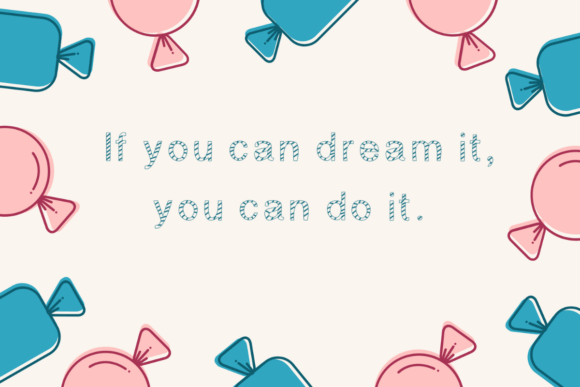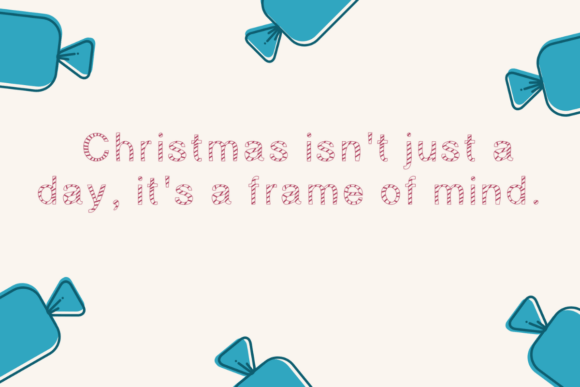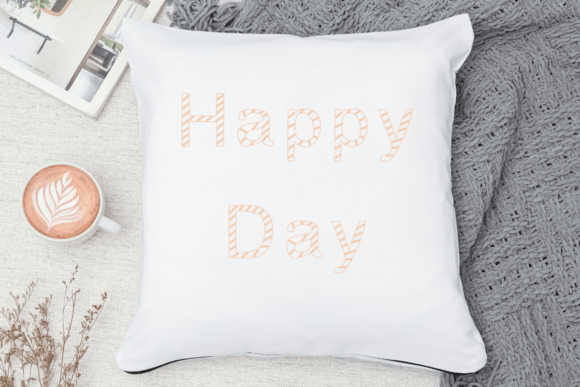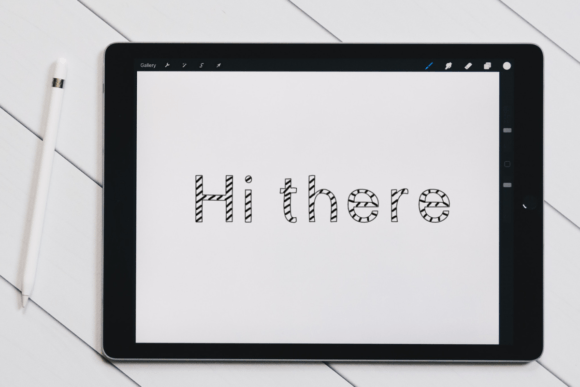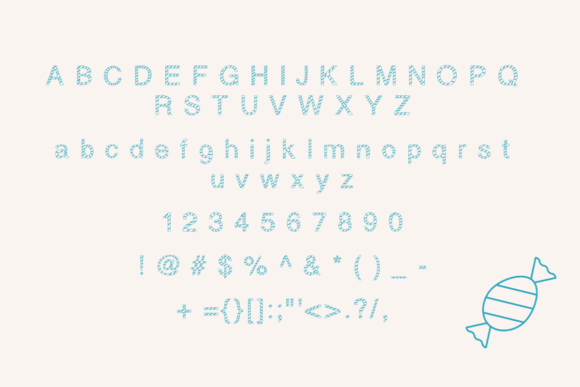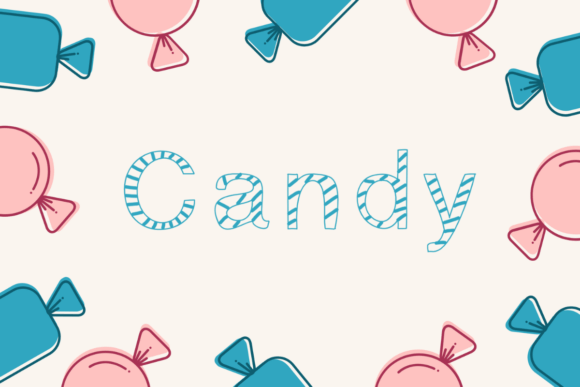
Candy Font: The Sweetest Addition to Your Design Projects
Are you looking for a font that can add a touch of whimsy and playfulness to your design projects? Look no further than the Candy Font! This adorable and straightforward display font is perfect for designers and crafters who want to create eye-catching and charming designs. In this article, we’ll explore the features and benefits of the Candy Font, and how you can use it to take your designs to the next level.
What is Candy Font?
Candy Font is a display font that is designed to be simple, yet charming. Its playful character shapes and adorable simplicity make it perfect for adding a touch of whimsy to your design projects. The font is designed to be easy to read and understand, making it perfect for use in a variety of design projects, from greeting cards to children’s books.
Features of Candy Font
The Candy Font has several features that make it a great choice for designers and crafters. Some of its key features include:
• Charming simplicity: The Candy Font has a simple and charming design that is perfect for adding a touch of whimsy to your designs.
• Playful character shapes: The font has playful character shapes that are designed to be fun and engaging.
• Easy to read: The font is designed to be easy to read and understand, making it perfect for use in a variety of design projects.
• Versatile: The Candy Font is versatile and can be used in a variety of design projects, from greeting cards to children’s books.
Benefits of Using Candy Font
There are several benefits to using the Candy Font in your design projects. Some of the benefits include:
• Adds a touch of whimsy: The Candy Font adds a touch of whimsy and playfulness to your designs, making them more eye-catching and engaging.
• Perfect for children’s designs: The font is perfect for use in children’s designs, such as children’s books, greeting cards, and other kid-friendly projects.
• Easy to use: The font is easy to use and can be easily integrated into your design projects.
• Unique and creative: The Candy Font is a unique and creative font that can help you stand out from the crowd.
How to Use Candy Font
The Candy Font is easy to use and can be integrated into your design projects in a few simple steps. Here are some tips on how to use the font:
• Choose the right project: The Candy Font is perfect for use in projects where a cute and lighthearted vibe is desired, such as greeting cards, children’s books, and other kid-friendly projects.
• Experiment with different sizes and colors: Experiment with different sizes and colors to find the perfect combination for your design project.
• Pair with other fonts: The Candy Font can be paired with other fonts to create a unique and creative design.
Design Ideas Using Candy Font
The Candy Font is a versatile font that can be used in a variety of design projects. Here are some design ideas to get you started:
• Greeting cards: Use the Candy Font to create adorable and playful greeting cards for birthdays, holidays, and other special occasions.
• Children’s books: The font is perfect for use in children’s books, where a cute and lighthearted vibe is desired.
• Party invitations: Use the Candy Font to create fun and playful party invitations for kids’ parties.
• Craft projects: The font can be used in a variety of craft projects, such as scrapbooking, card making, and other paper crafts.
In conclusion, the Candy Font is a sweet and charming font that is perfect for adding a touch of whimsy to your design projects. Its playful character shapes and adorable simplicity make it perfect for use in a variety of design projects, from greeting cards to children’s books. With its ease of use and versatility, the Candy Font is a great choice for designers and crafters who want to create eye-catching and charming designs.